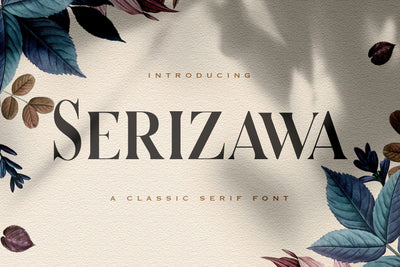
Serizawa - Classic Serif Font
Introducing Serizawa - Classic Serif Font
Serizawa is an authentic and neat serif font. It can easily be matched to an incredibly large set of projects, so add it to your creative ideas and notice how it makes them stand out!